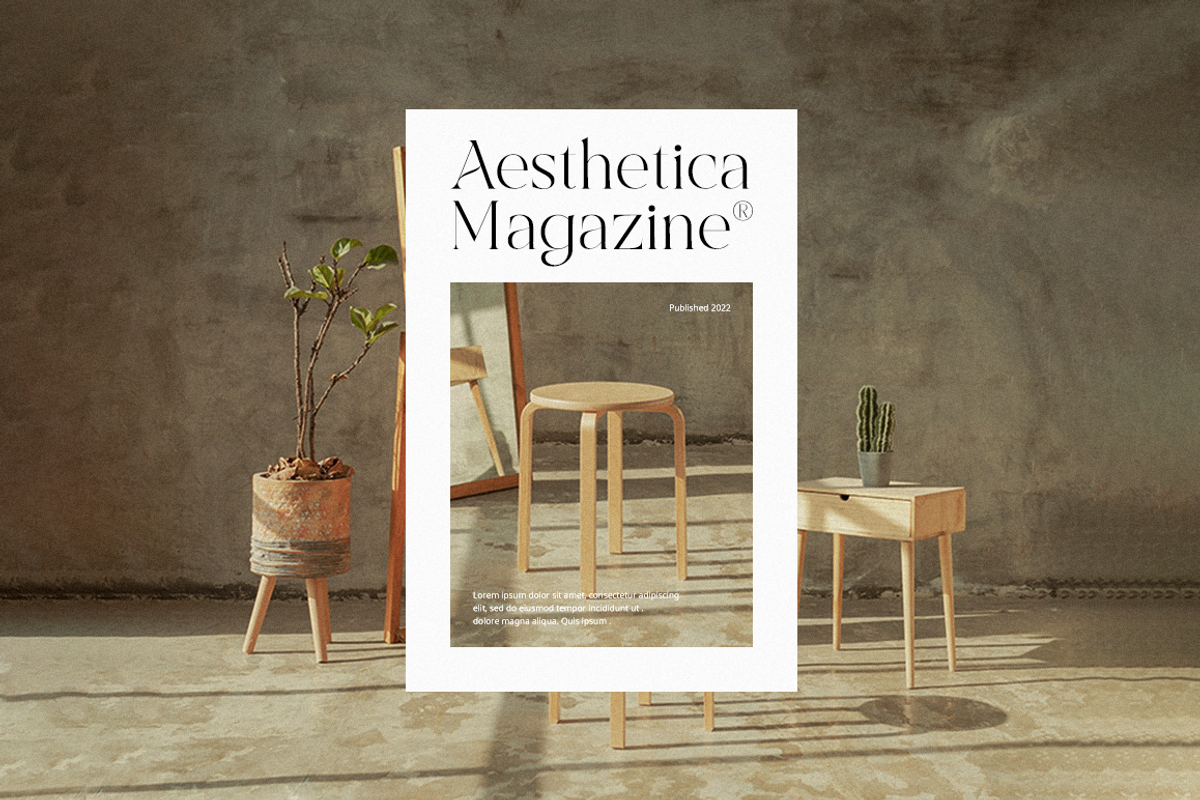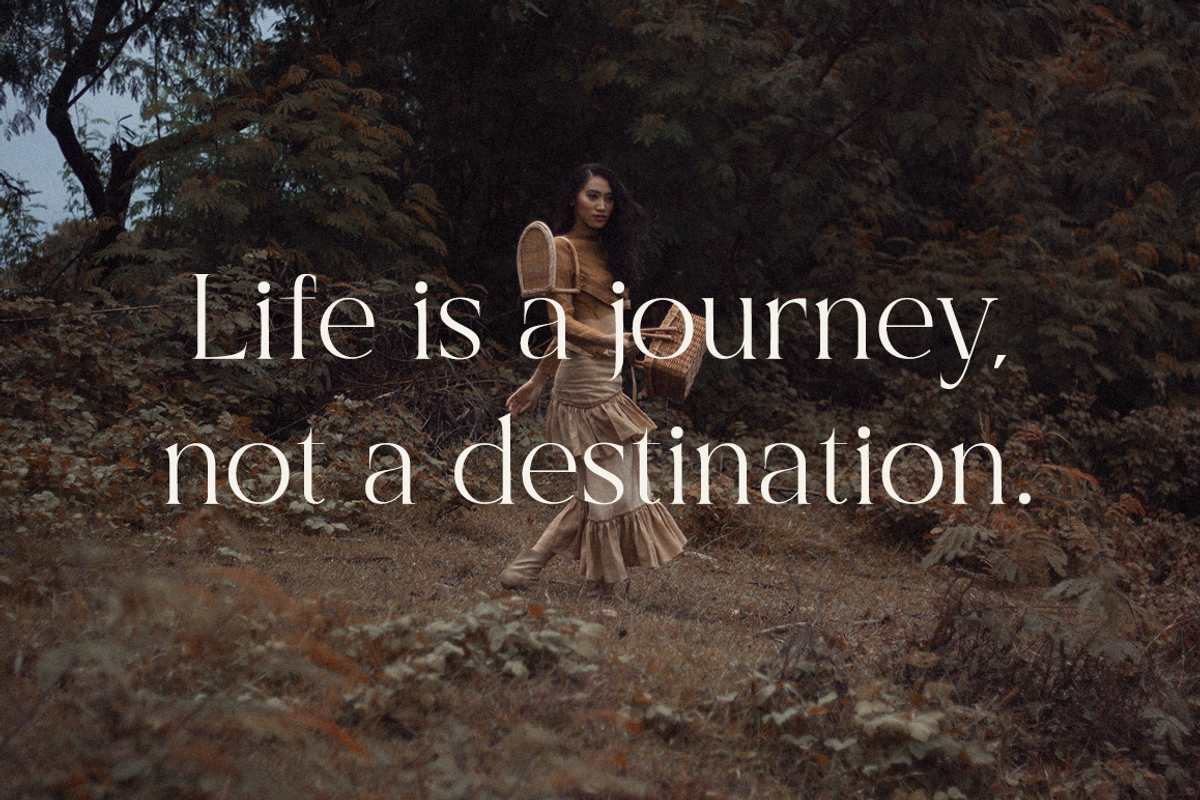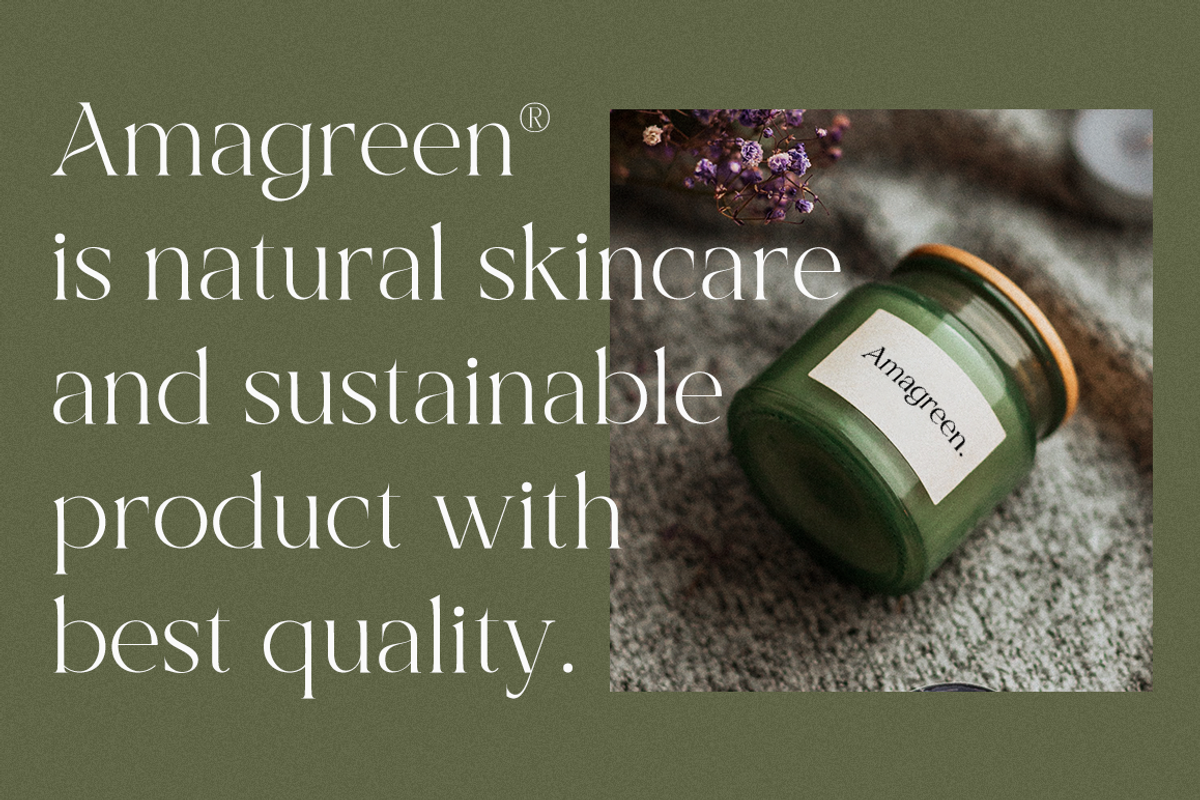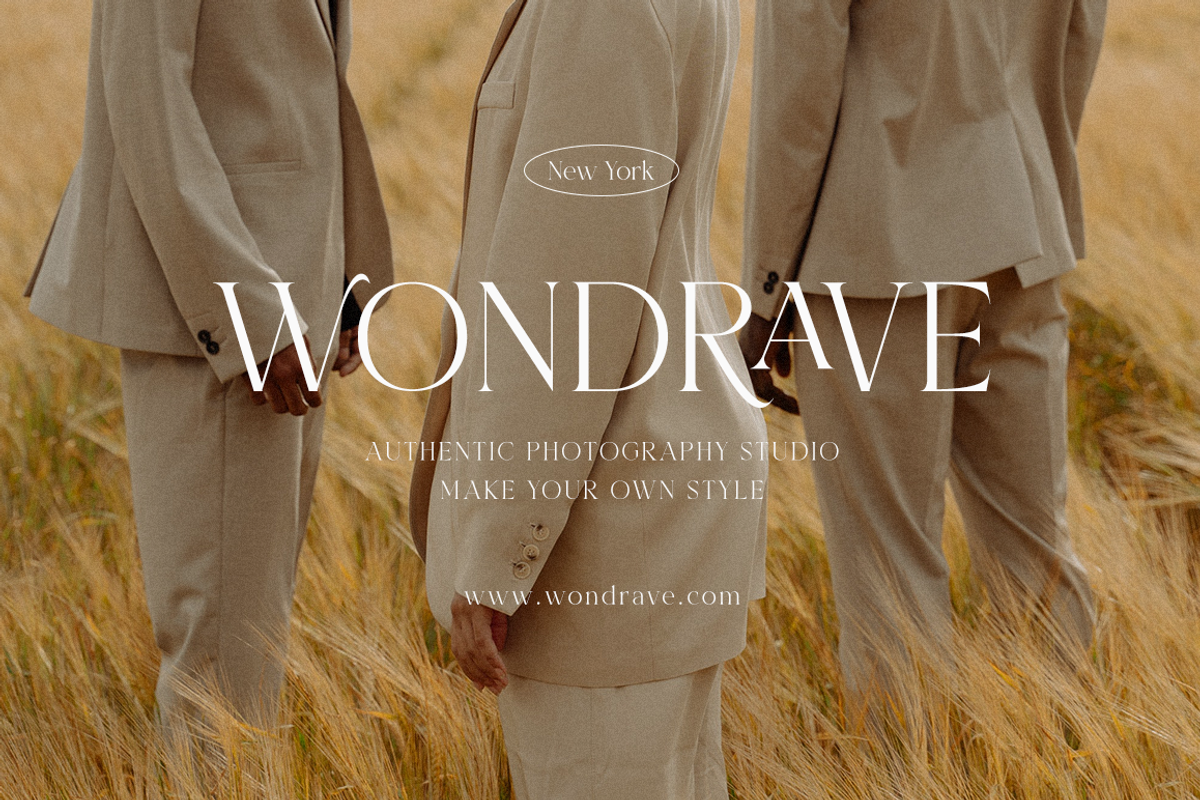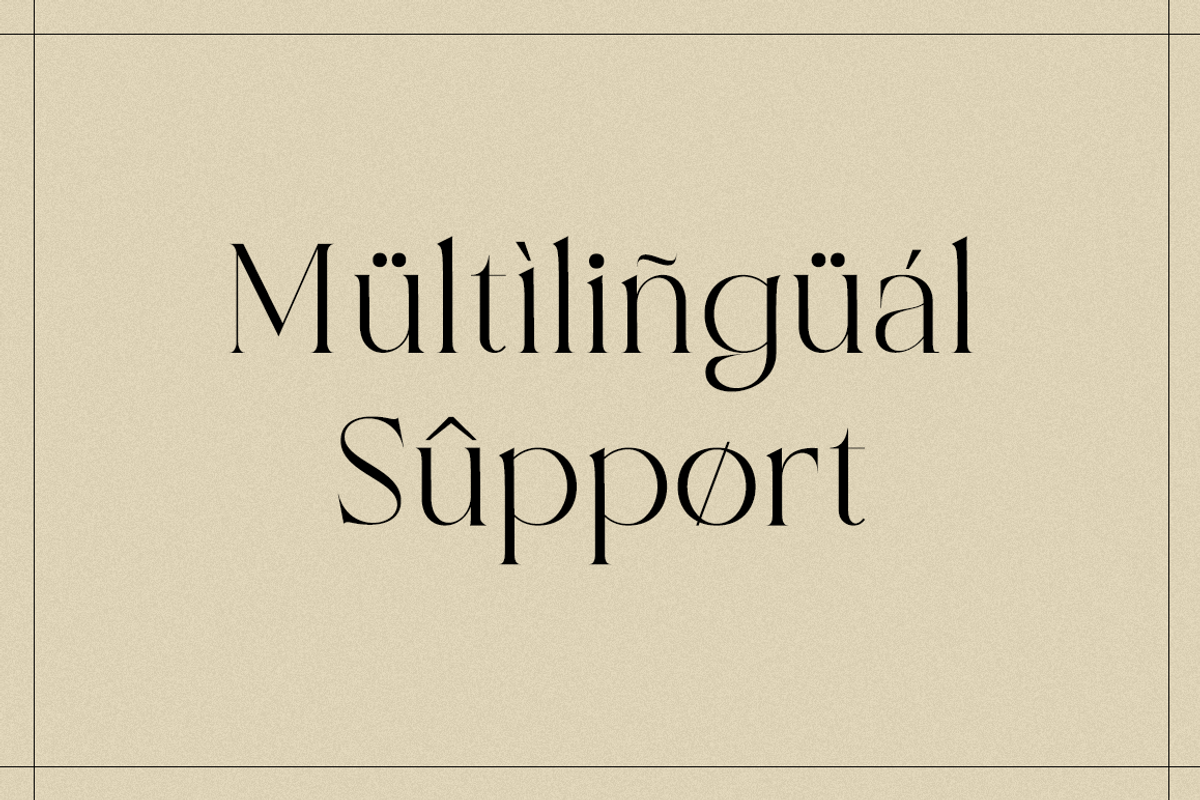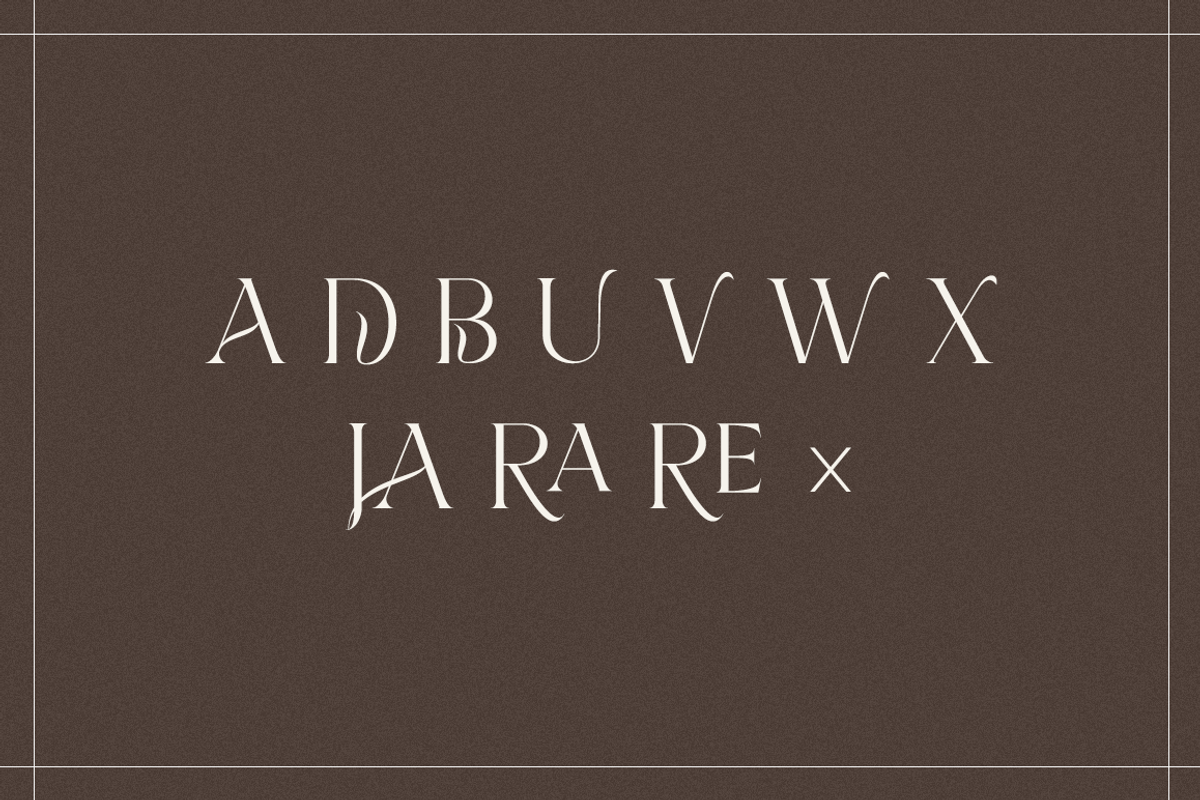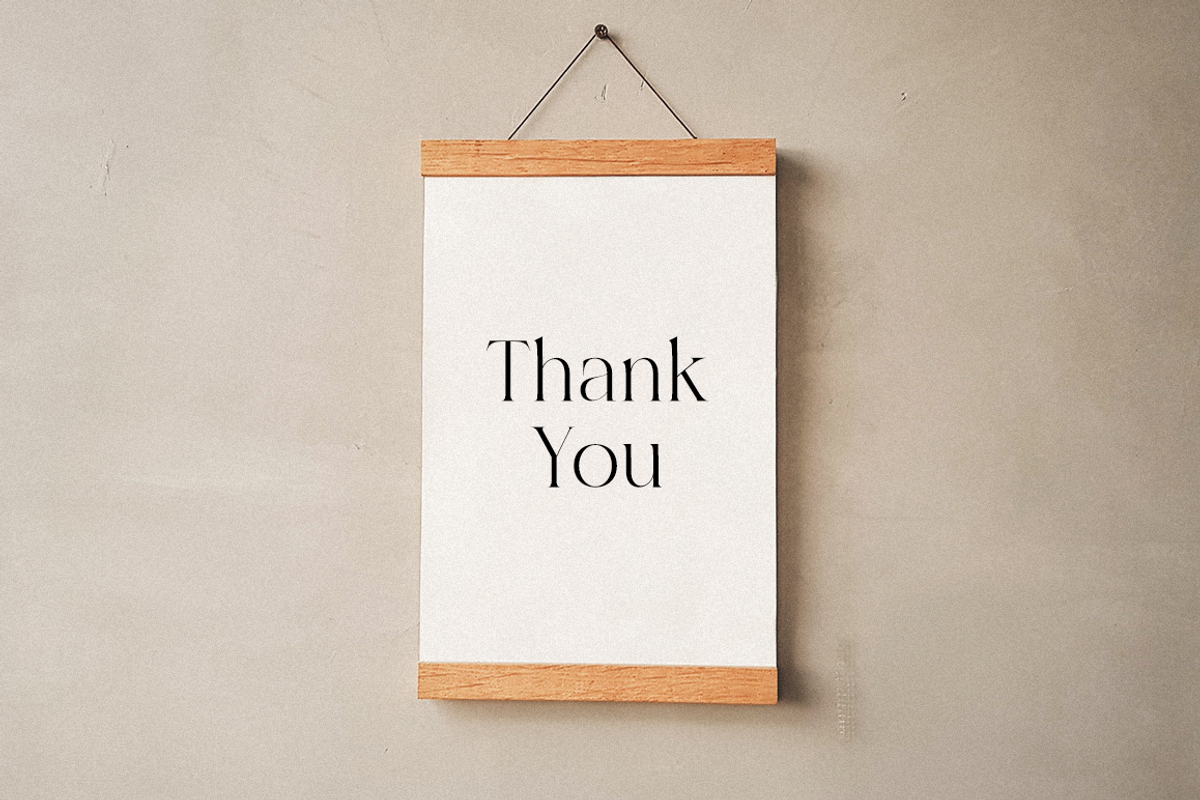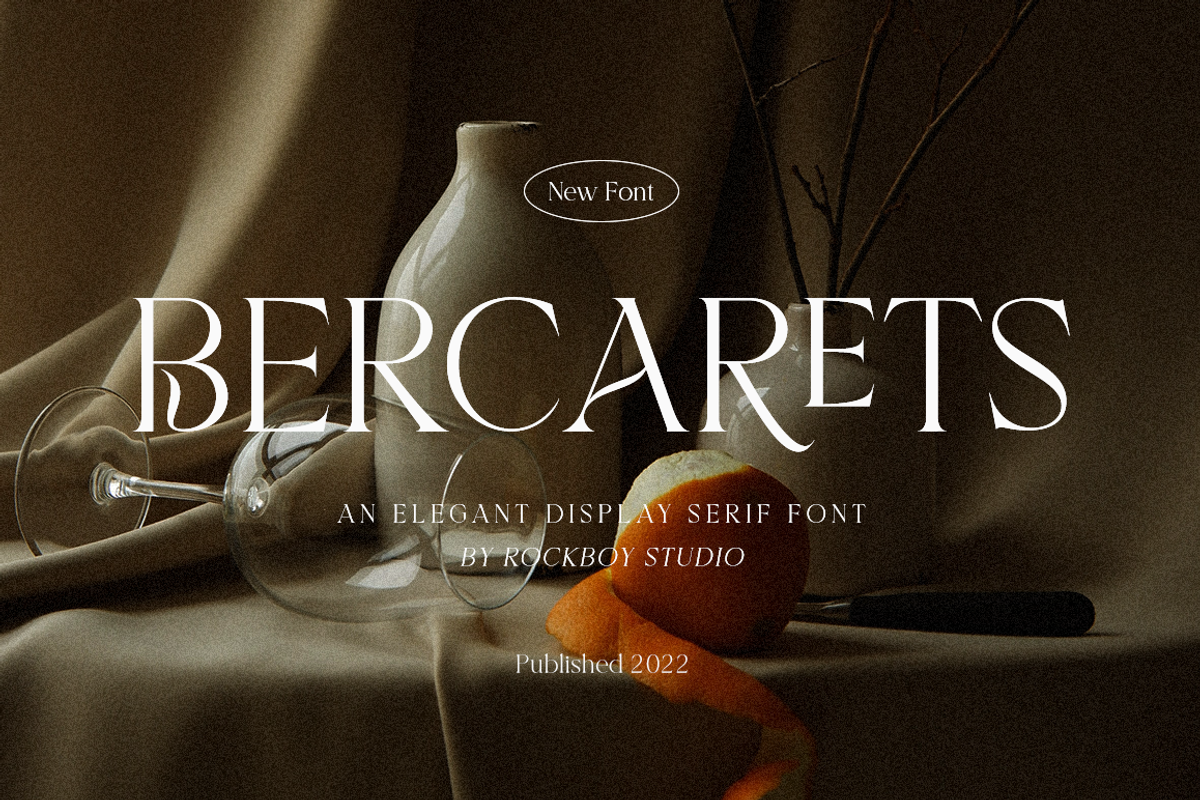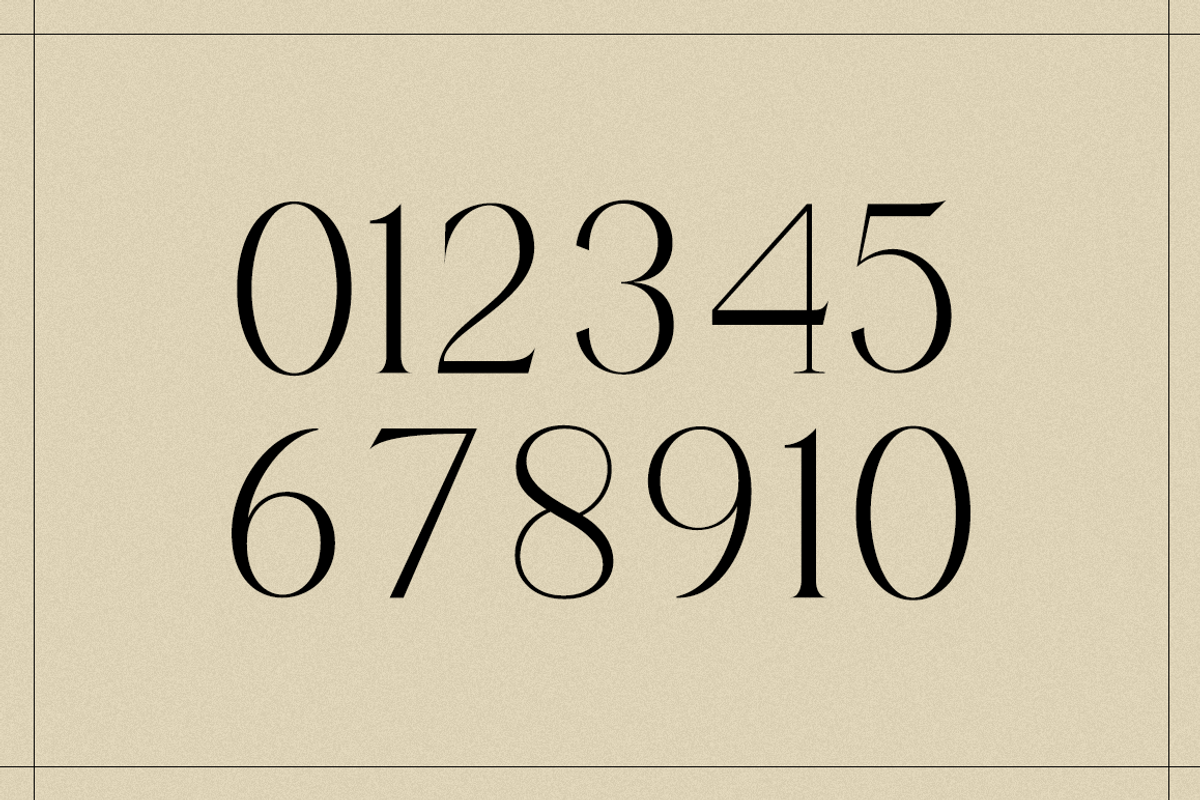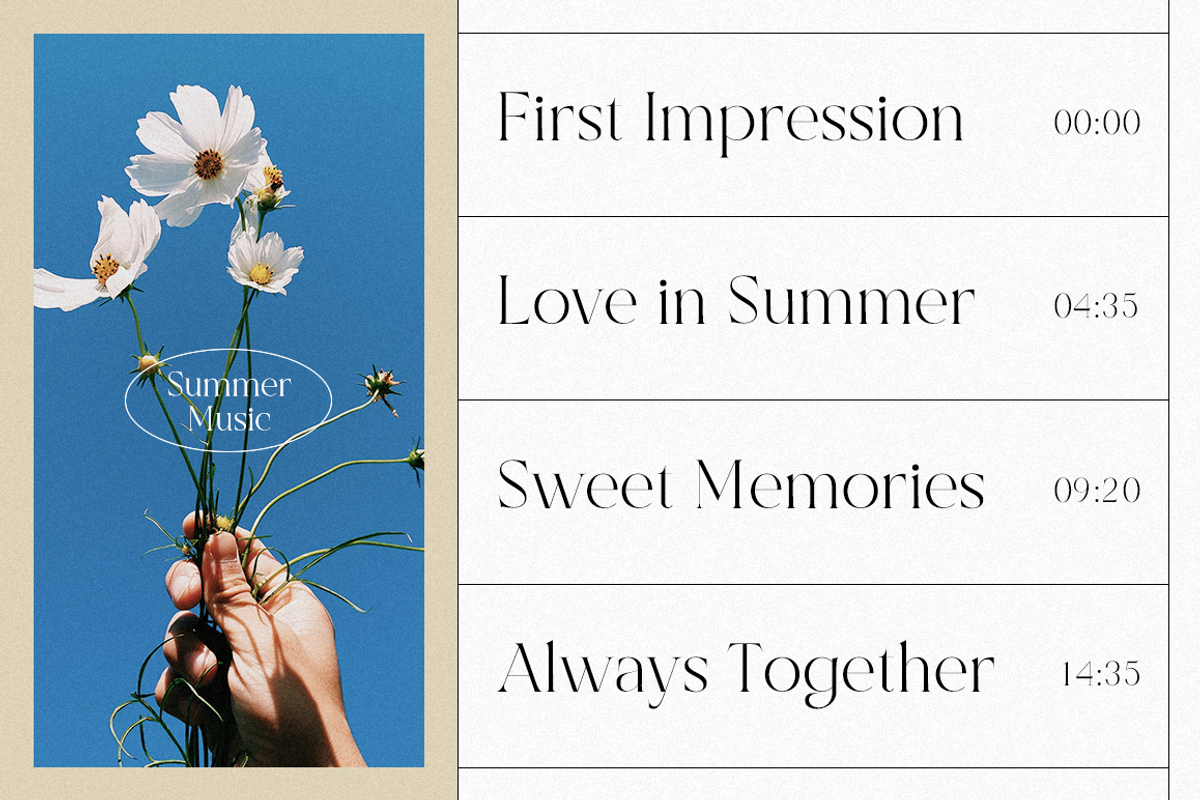
Bercarets - Elegant Serif Font
Bercarets is an elegant and authentic serif font. No matter the topic, this thin font will be an incredible asset to your library, as it has the potential to elevate any creation.